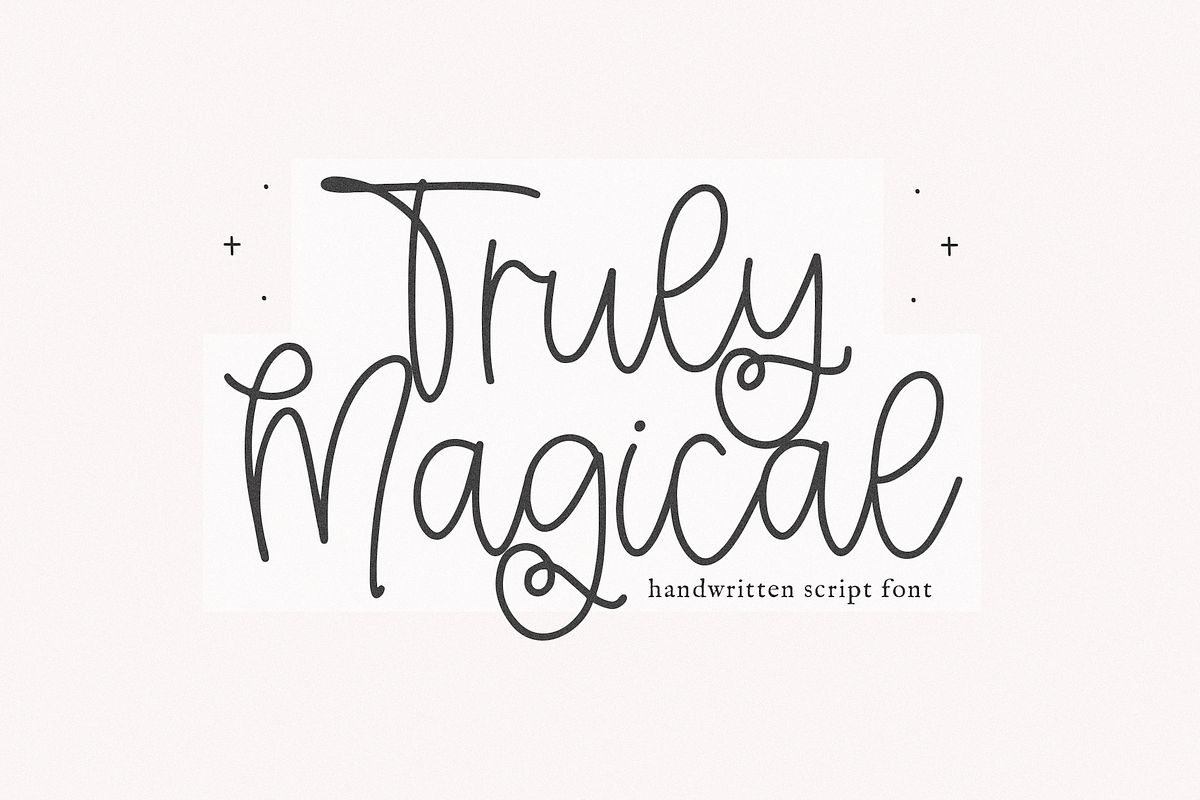
Truly Magical | Modern Script Font Free Download
The Truly Magical | Modern Script Font Free Download is a sophisticated and enchanting script typeface that combines flowing curves with modern elegance. Perfect for branding, wedding invitations, social media graphics, and any creative project that calls for a touch of elegance and charm, this font is designed to captivate and inspire.
With its graceful strokes and whimsical style, Truly Magical brings a delicate, handwritten feel to your designs. It includes uppercase and lowercase letters, ligatures, stylistic alternates, punctuation, and multilingual support, making it versatile for various creative needs.